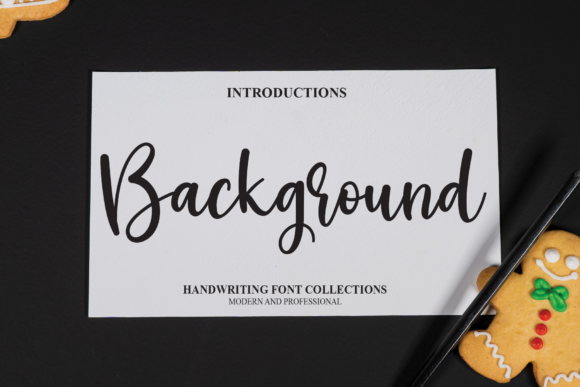
About Background Font
Background is a bold and natural handwritten font that can take any creation to the highest level! Use it for wall displays, wedding invitations, social media post logos, advertisements, product packaging, product designs, labels, photography, watermarks, invitations, stationery, and any project that requires unique typography!